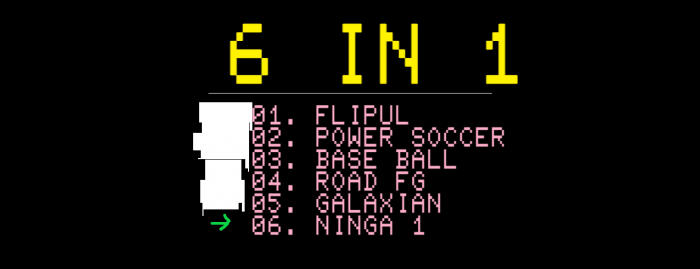
WHEN I GETS 201 YEARS IN 6 IN 1 NINTENDO.
@jeroromerowhy - Very nice recreation.  Should the L be moved to the left by 1 pixel?
Heberekeby jeroromerowhy